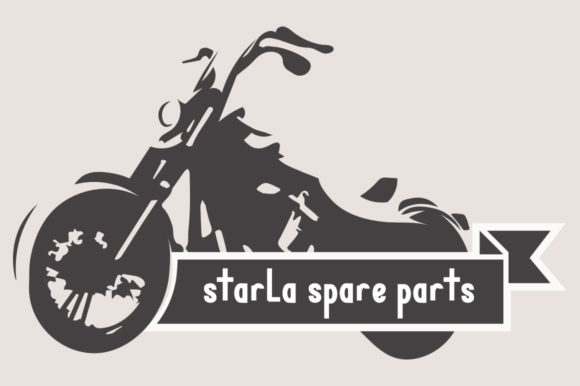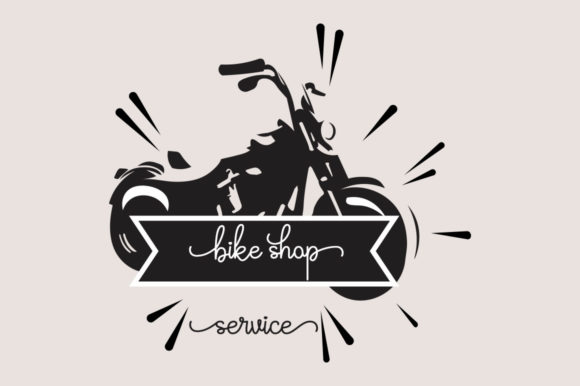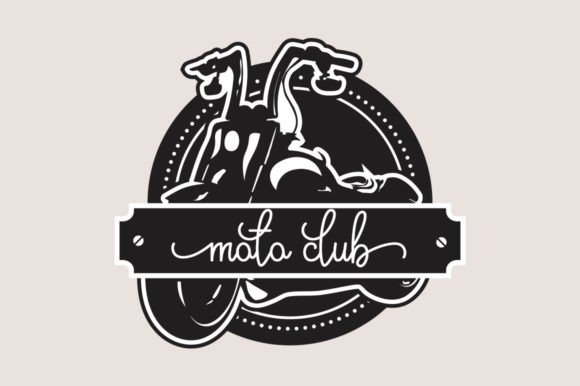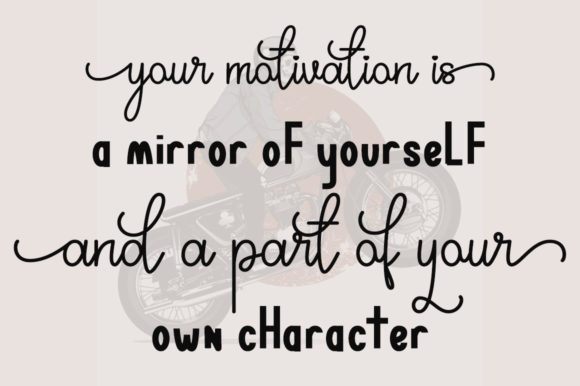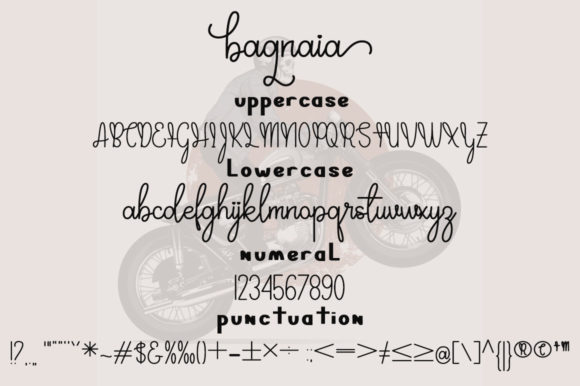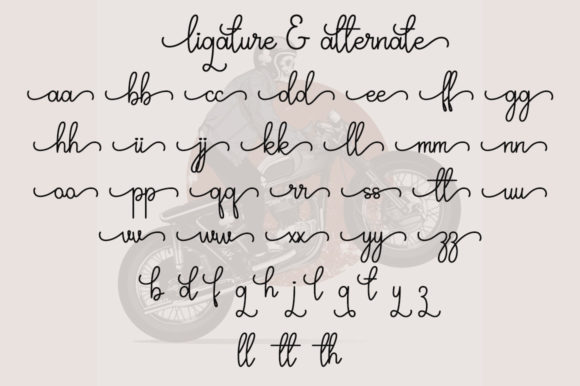
Introduction to Pecco Bagnaia Font
Pecco Bagnaia is a lovely and versatile duo font (sans serif and script).
This font is PUA encoded which means you can access all of the glyphs and swashes with ease Get inspired by its light and approachable style and employ it to your most favorite creations.